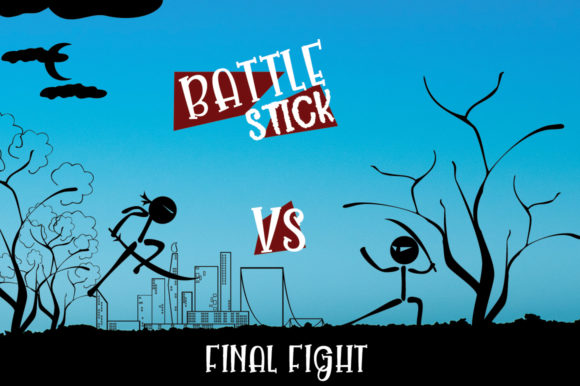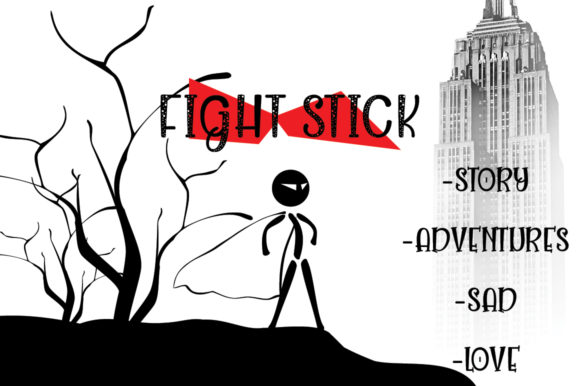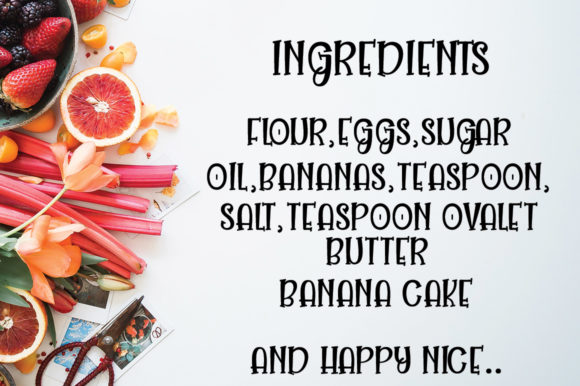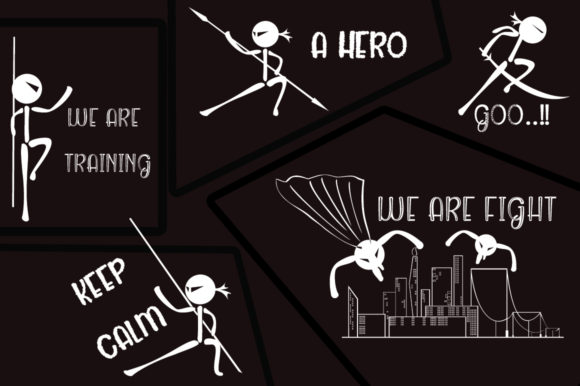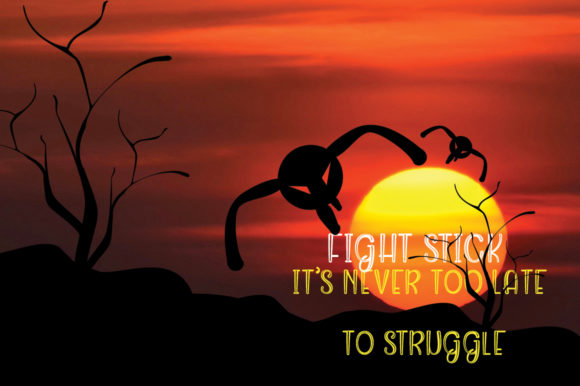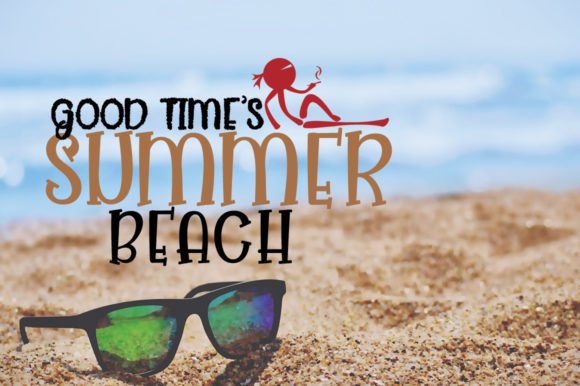
Fight Stick Family Font: Unleash Your Design’s Inner Strength
Fight Stick is a unique font Family that brings together a set of bold and powerful display fonts, designed to add a touch of edginess and playfulness to any design project. This font family is perfect for designers and crafters looking to make a statement with their typography.
The Origins of Fight Stick
The Fight Stick font family was inspired by the world of gaming and martial arts. The creators wanted to design a font that would capture the essence of competition, strength, and agility. The result is a collection of fonts that exude confidence and energy.
Key Features of Fight Stick
- Bold and Powerful: Fight Stick fonts are designed to make a statement. They are bold, powerful, and attention-grabbing, making them perfect for headlines, titles, and displays.
- Unique and Edgy: The font family has a distinctive look that sets it apart from other display fonts. The letters are designed with sharp lines, pointed edges, and a hint of playfulness.
- Versatile: Fight Stick comes in a range of styles, from clean and simple to distressed and grungy. This versatility makes it suitable for various design projects, from posters and flyers to logos and branding.
- Easily Customizable: The font family is designed to be easily customized, allowing designers to experiment with different styles, colors, and textures.
Who Can Benefit from Fight Stick?
Fight Stick is an excellent choice for:
- Graphic Designers: Whether you’re working on a logo, brochure, or website, Fight Stick can add a bold and eye-catching touch to your design.
- Game Developers: If you’re creating a game that requires a font with a competitive edge, Fight Stick is an excellent choice.
- Crafters and Makers: If you’re creating products with a bold and edgy aesthetic, Fight Stick can help you achieve that look.
- Marketing and Advertising Agencies: Fight Stick can help you create attention-grabbing headlines and titles for your campaigns.
Tips for Using Fight Stick
- Pair with a Simple Font: To create visual balance, pair Fight Stick with a simple, clean font for body text.
- Experiment with Colors and Textures: Don’t be afraid to try out different colors and textures to give your design a unique look.
- Use for Headlines and Titles: Fight Stick is designed for display purposes, so use it for headlines, titles, and attention-grabbing text.
Fight Stick is a unique and powerful font family that can add a touch of edginess and playfulness to any design project. With its bold and attention-grabbing style, it’s perfect for designers and crafters looking to make a statement. Whether you’re working on a logo, game, or marketing campaign, Fight Stick is an excellent choice.